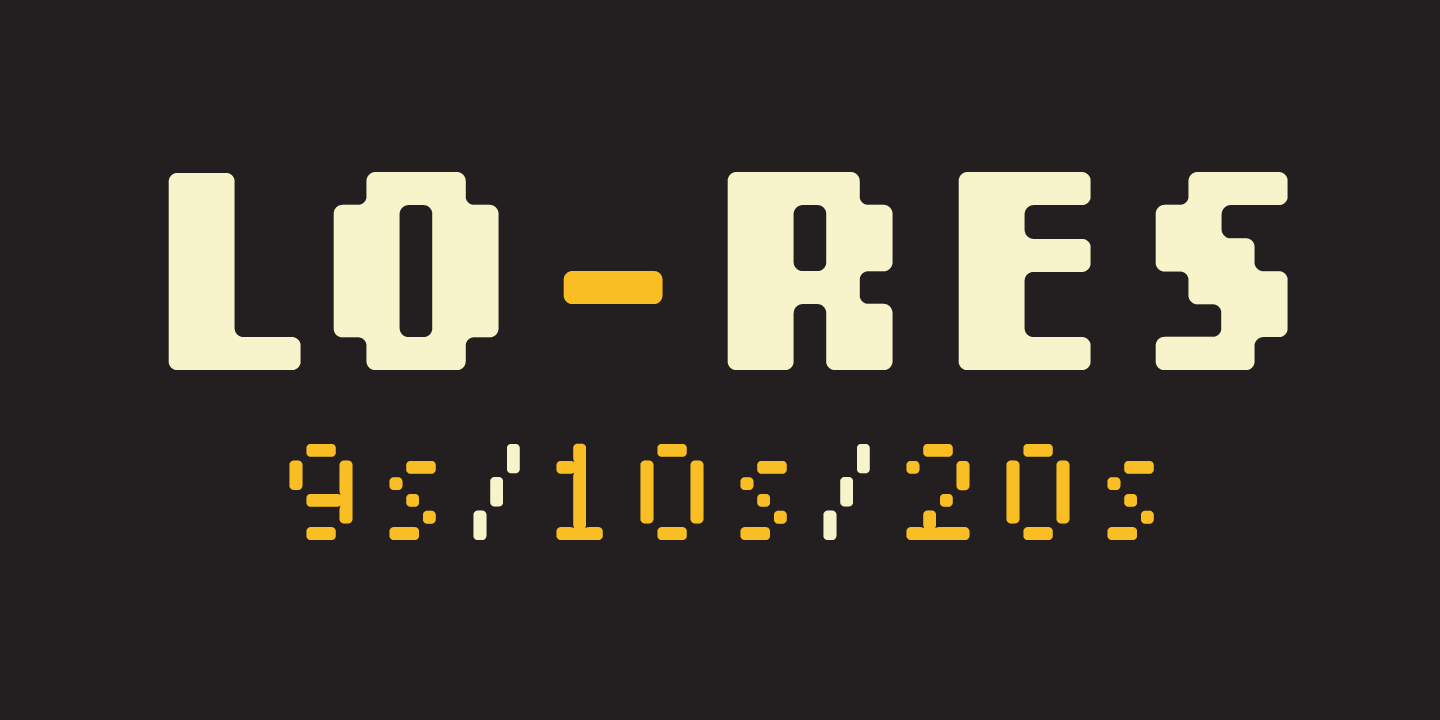
Lo-Res Font is ideal for retro gaming interfaces, pixel art projects, 8-bit style branding, vintage computer aesthetics, arcade game designs, nostalgic tech campaigns, digital art exhibitions, indie game development, cyberpunk-inspired materials, and retro-futuristic marketing projects. This distinctive typeface excels in designs that celebrate the iconic visual language of early digital culture and pixelated aesthetics.
What makes Lo-Res Font exciting is its authentic recreation of early digital typography that captures the raw charm and technical constraints of pioneering computer graphics. The font features deliberately pixelated letterforms that evoke the nostalgic appeal of classic video games and early computing systems. This genuine retro-digital character makes it perfect for brands seeking to connect with gaming culture, tech nostalgia, and the growing appreciation for vintage digital aesthetics.
Lo-Res Font family includes Regular, Bold, Condensed, Extended, Outline, Shadow, 3D, and Glitch variants. Each style maintains the font's distinctive pixelated character while offering different levels of visual impact and nostalgic intensity, enabling designers to create authentic retro-digital compositions that celebrate computing history.
The Lo-Res Font Free Download provides designers with access to a premium pixel-perfect typeface that authentically represents the golden age of arcade gaming and early personal computing. This font's genuine 8-bit aesthetic and cultural significance make it particularly valuable for gaming companies, tech startups, and creative projects targeting audiences who appreciate digital heritage.
Creative professionals appreciate the font's ability to instantly transport viewers to the pioneering days of digital culture. The pixelated characteristics and deliberately constrained design create powerful nostalgic connections that modern fonts cannot achieve, making it essential for projects requiring authentic retro-digital personality.
When implementing Lo-Res Font in design projects, designers can create compelling visual narratives that resonate with gaming enthusiasts and tech culture aficionados. The font's nostalgic appeal makes it especially effective for brands in gaming, technology, entertainment, and creative industries where cultural authenticity and digital heritage are valued.
For digital environments, Lo-Res Font maintains its authentic pixelated qualities across different platforms while scaling appropriately for modern screen resolutions. Its optimized rendering preserves the distinctive 8-bit character essential for authentic retro-digital experiences.
Design agencies consistently select Lo-Res Font for projects requiring genuine retro-gaming appeal and digital nostalgia, where contemporary fonts cannot capture the desired connection to early computing culture and arcade aesthetics.